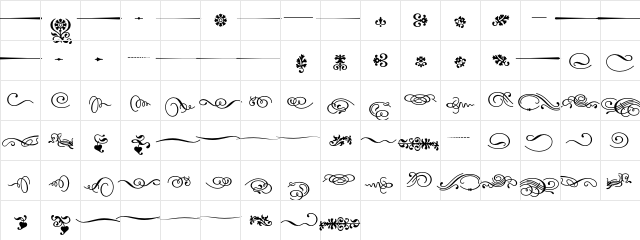
Dalliance Regular
Design Context for Dalliance Typeface
Dalliance is a composed and adaptable typeface that performs quietly and consistently across a wide range of design contexts.